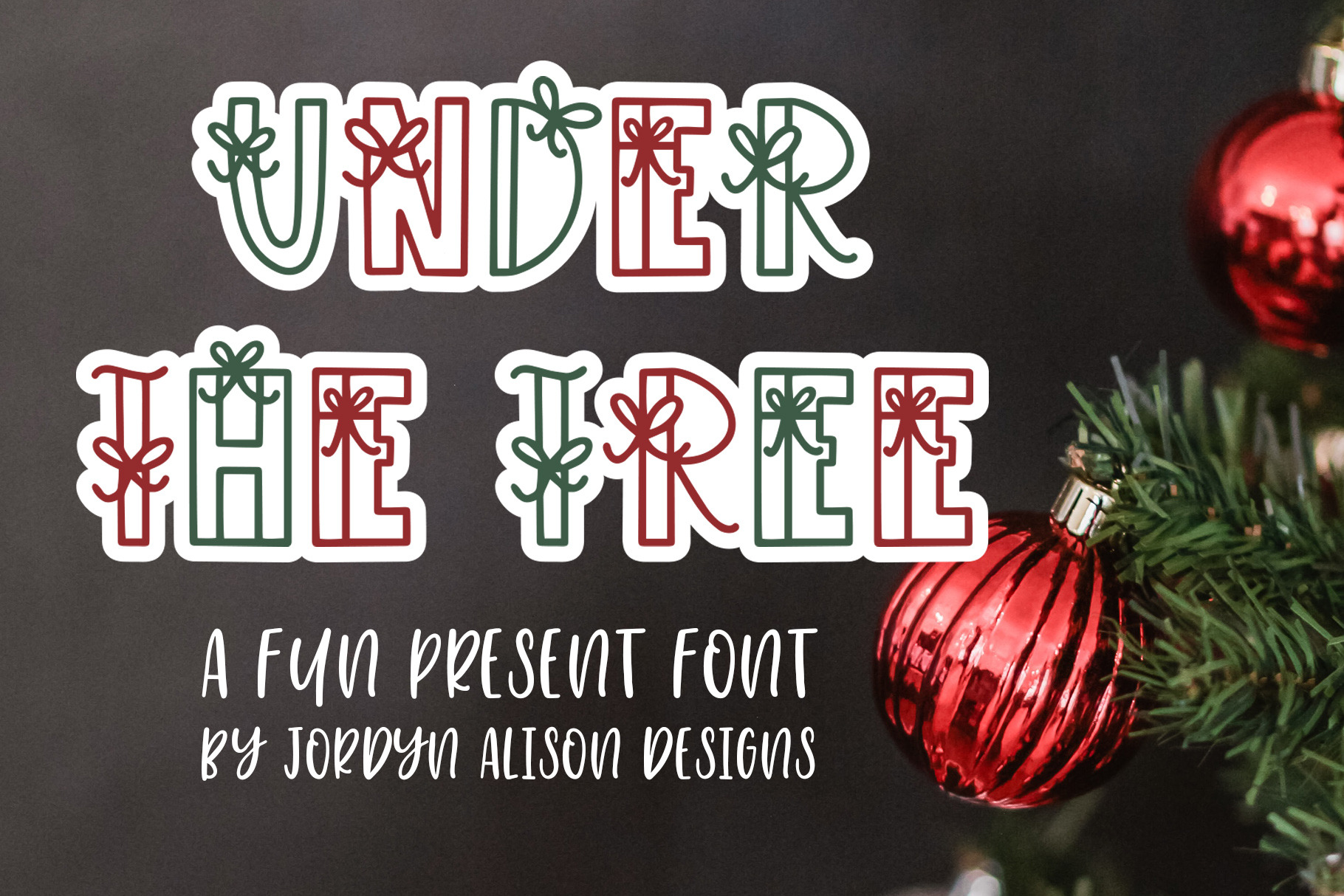
Under The Tree, Christmas Font
Introducing Under The Tree, a fun Christmas Presents font.
Under the Tree Font Features:
- Letters A-Z
- 0-9 and some punctuation